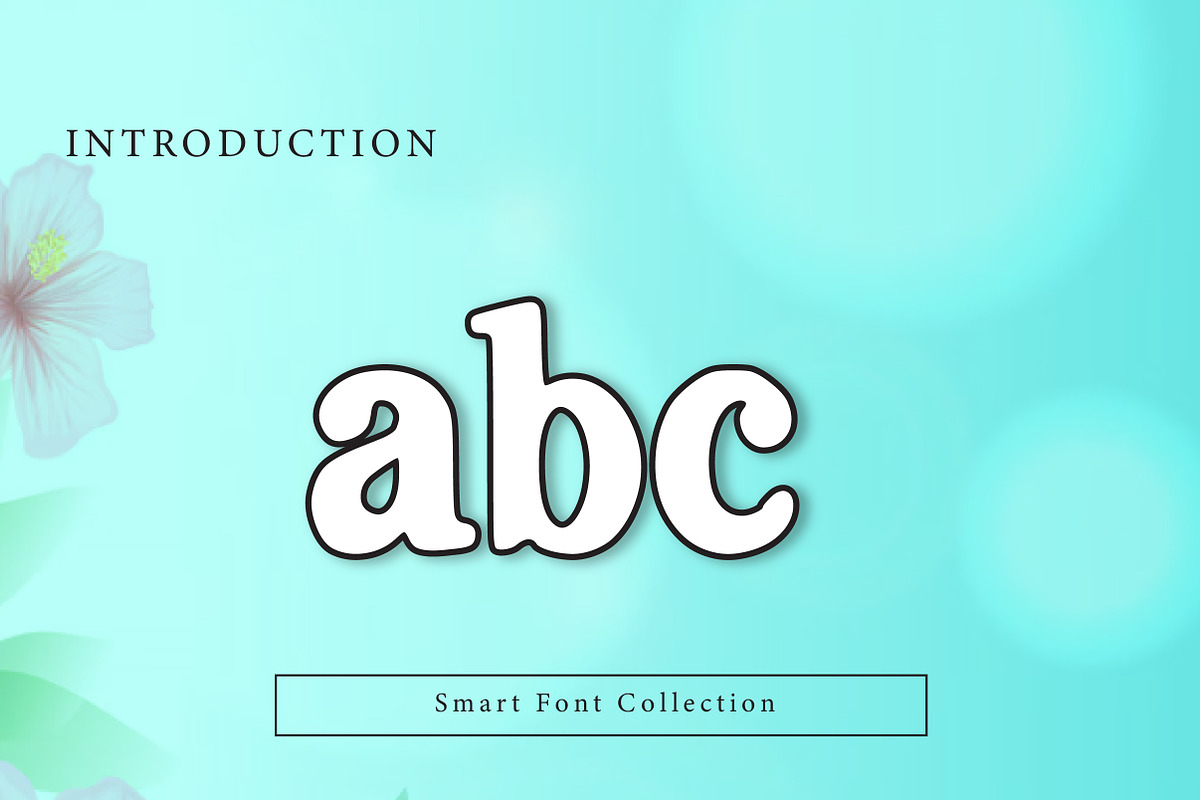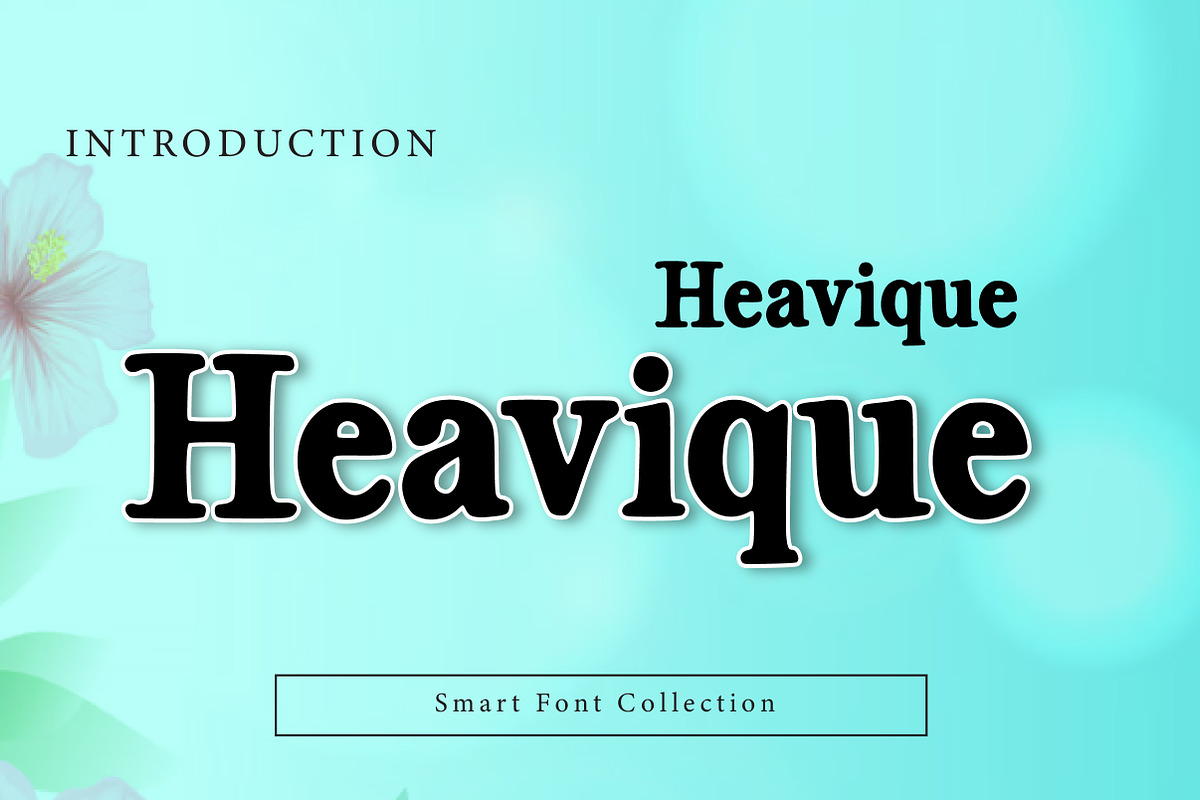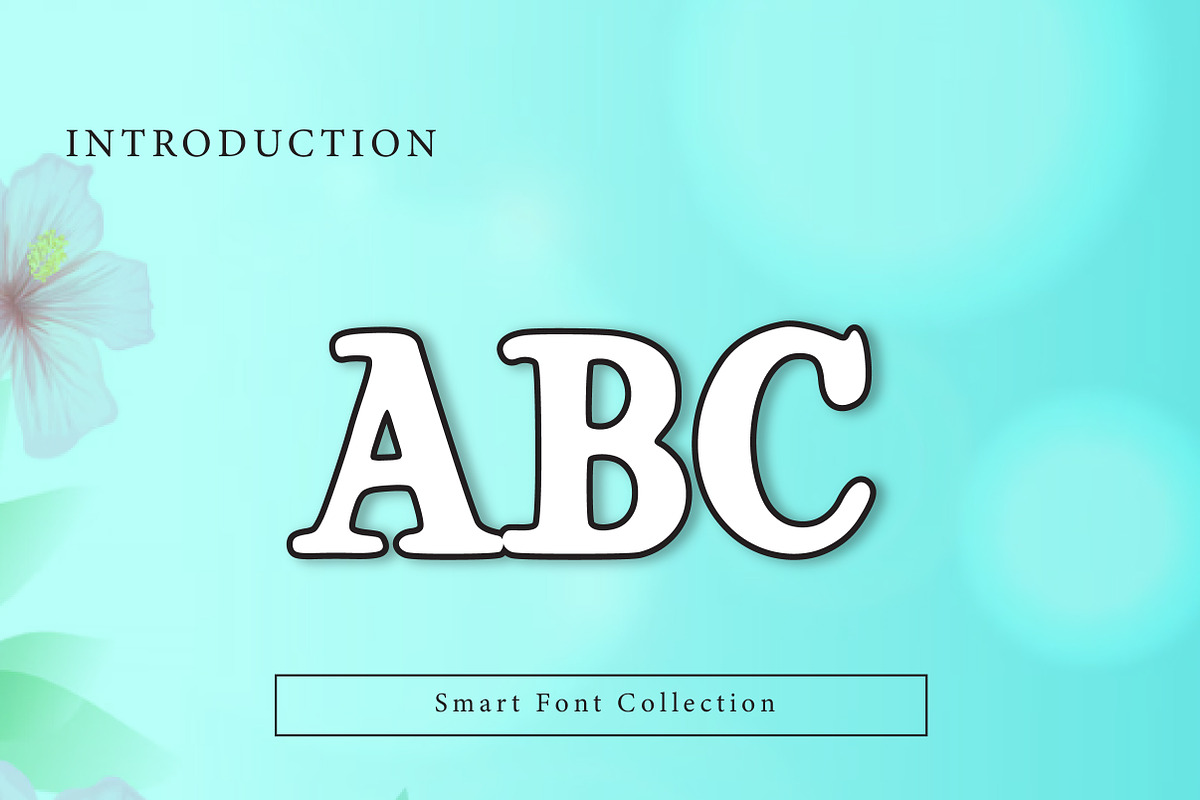
Heavique
Heavique is a bold and modern high-impact display font designed for strong typography and powerful branding. Featuring thick strokes, solid letterforms, and a confident contemporary style, this font is perfect for headlines, logos, posters, packaging, signage, streetwear designs, advertising, and social media graphics. Heavique delivers maximum readability and visual strength, making it ideal for modern projects that need bold attention-grabbing titles and clean heavy typography.